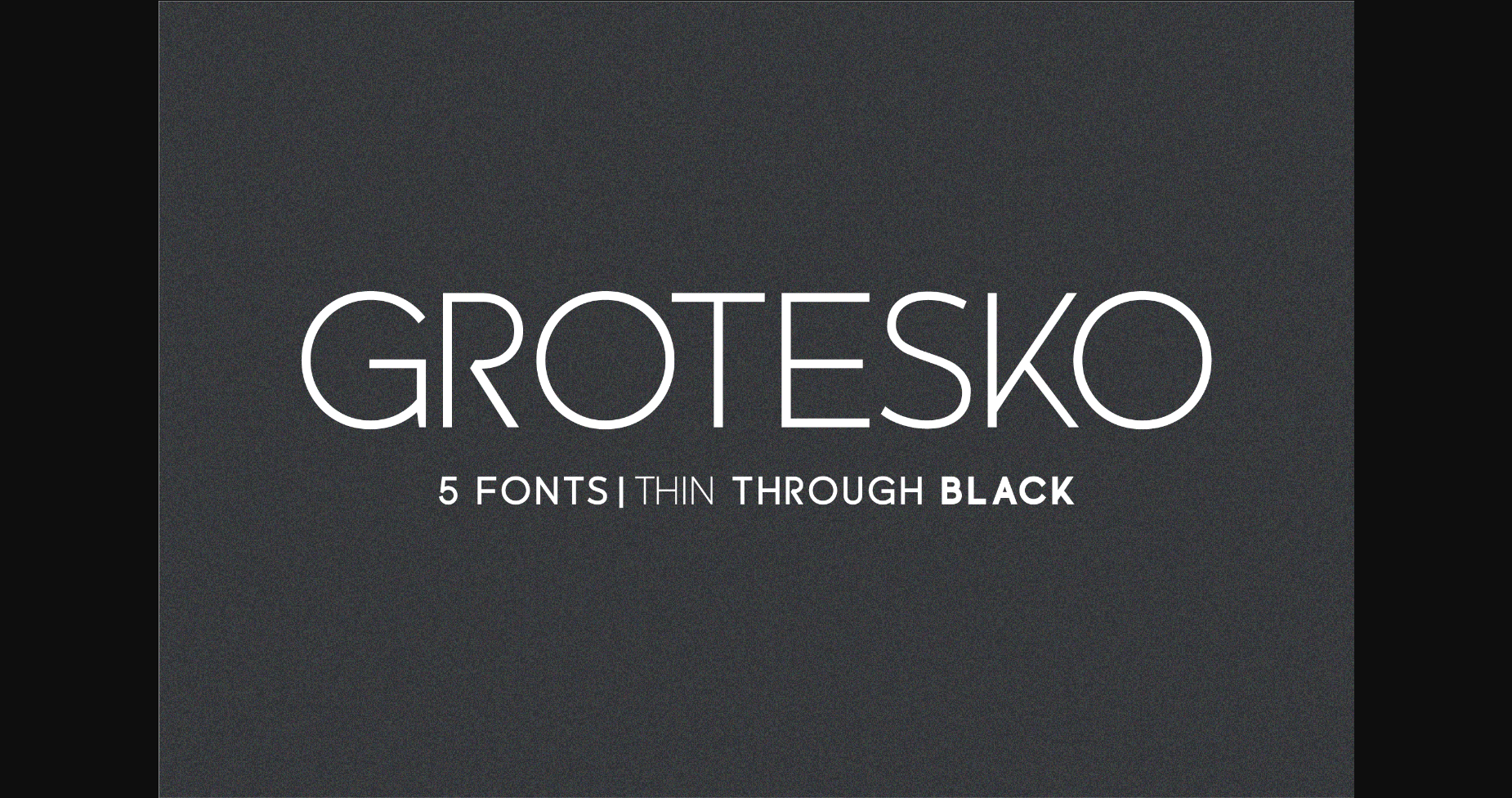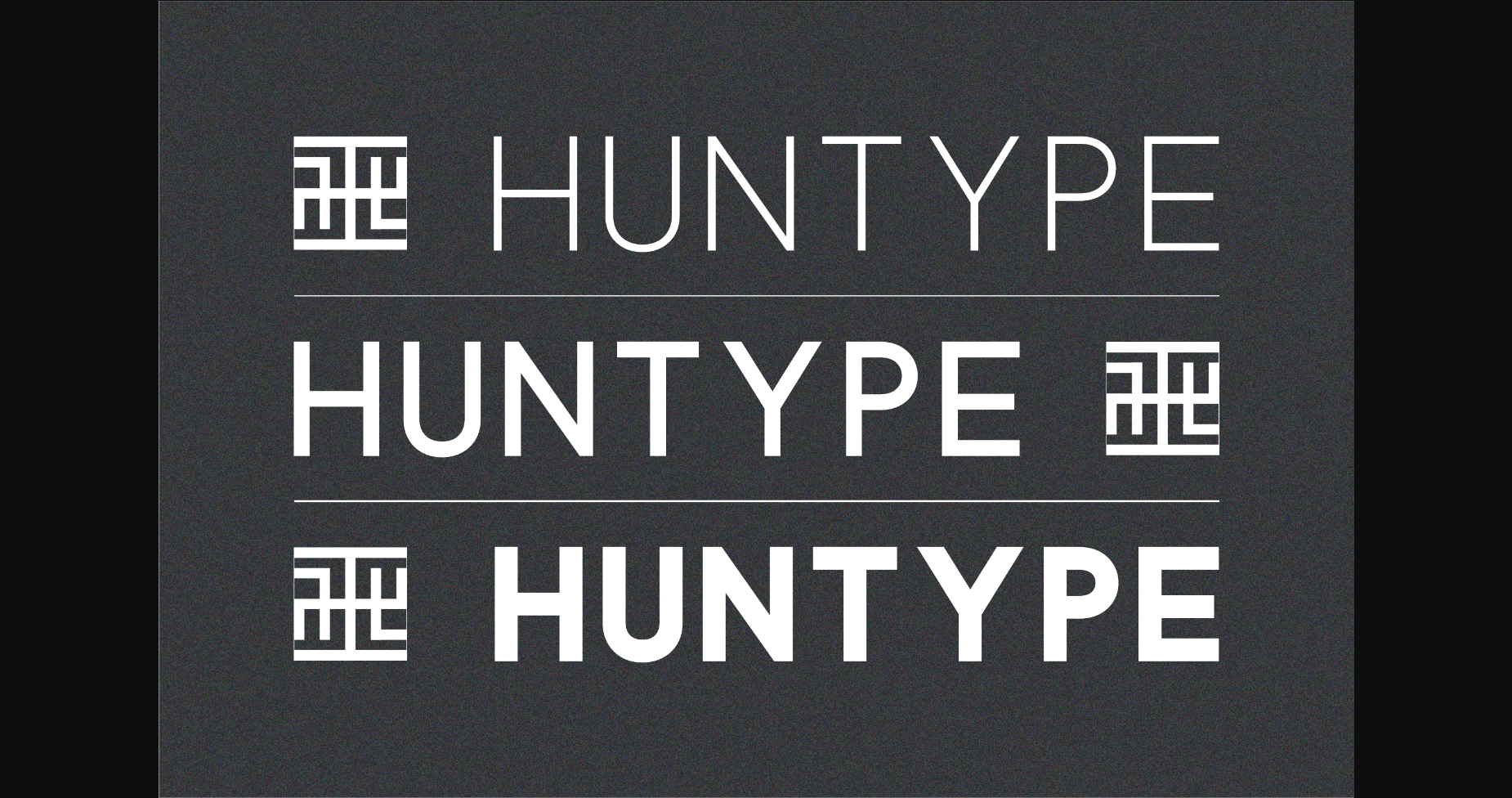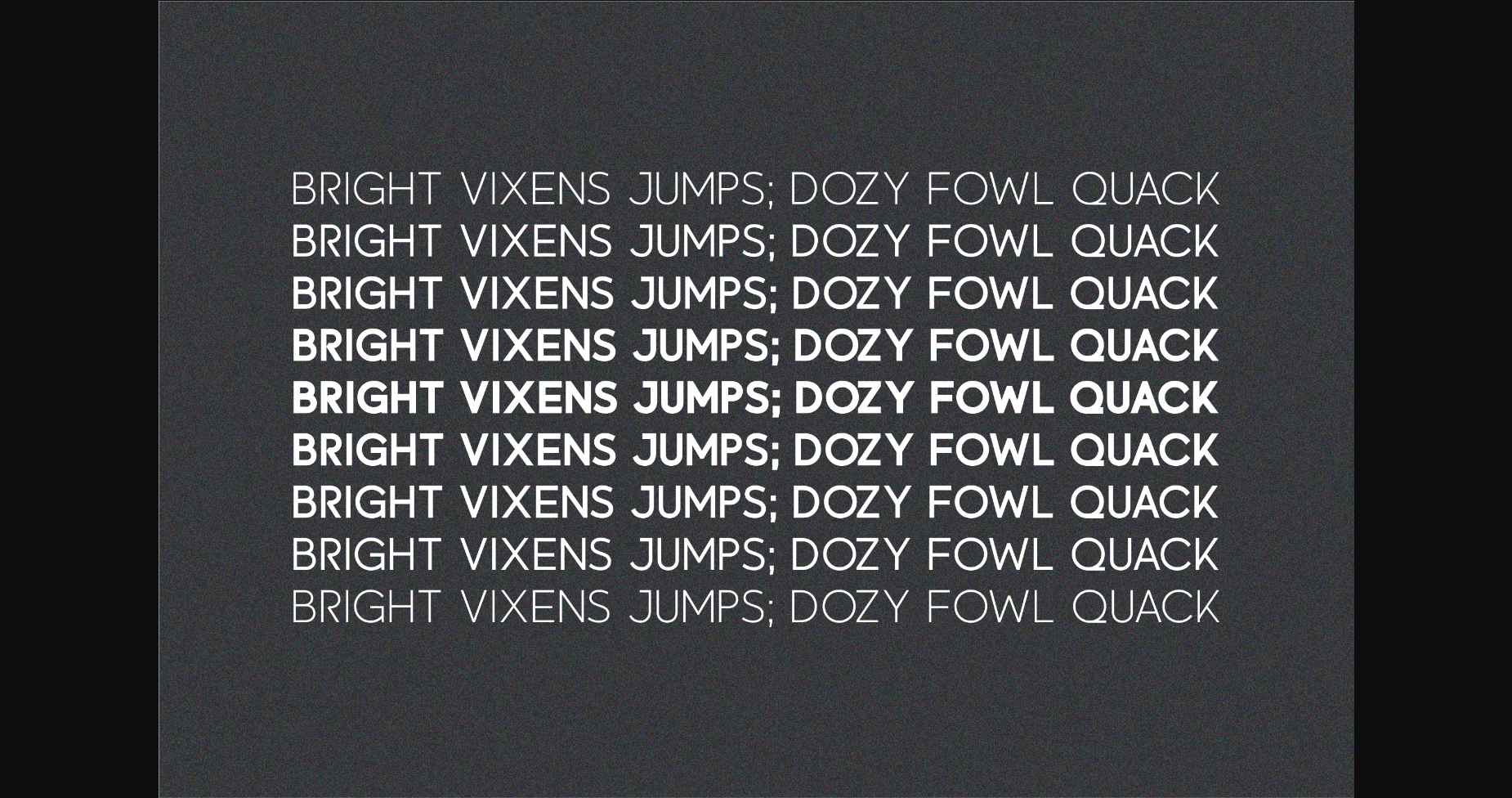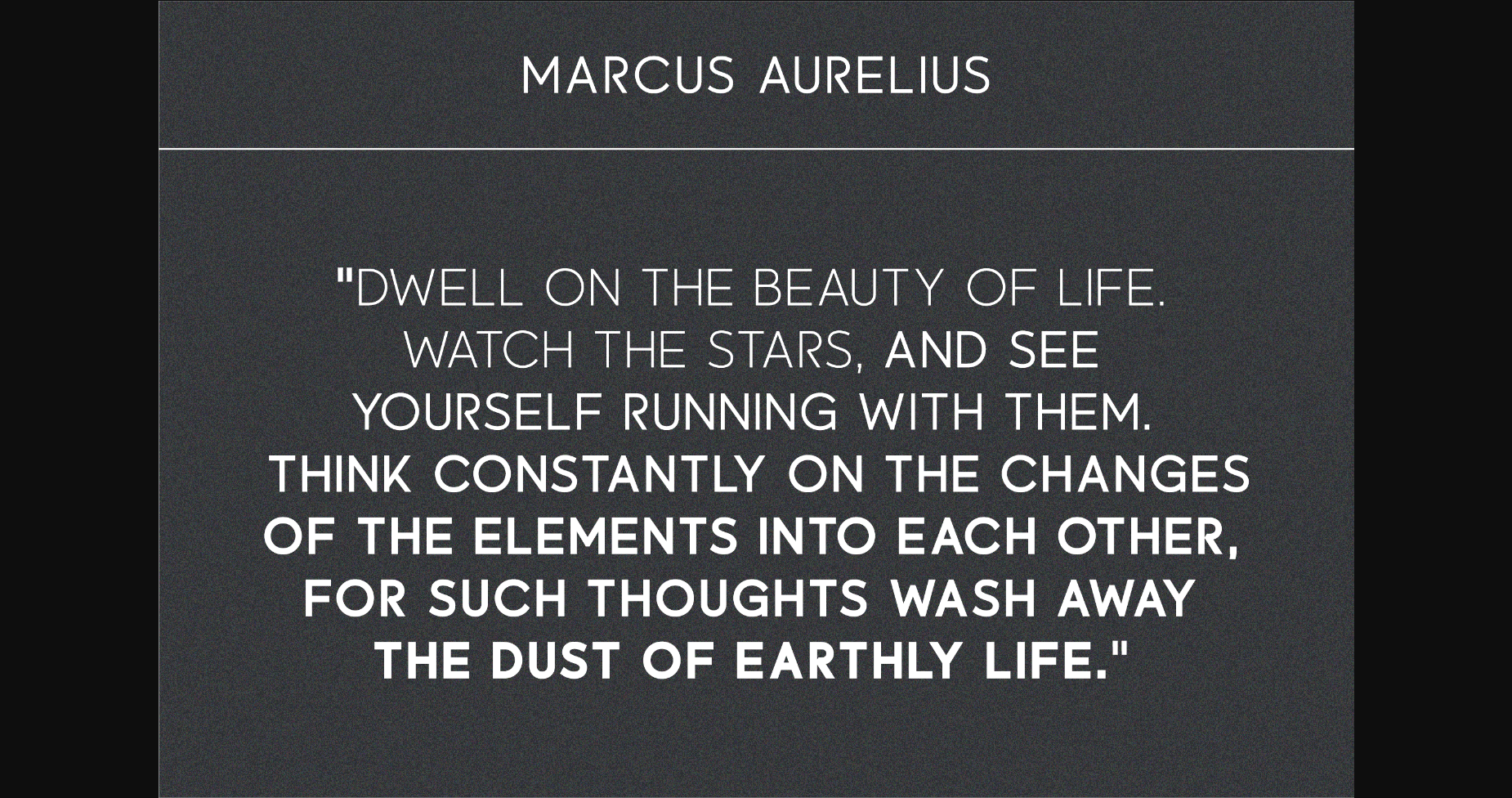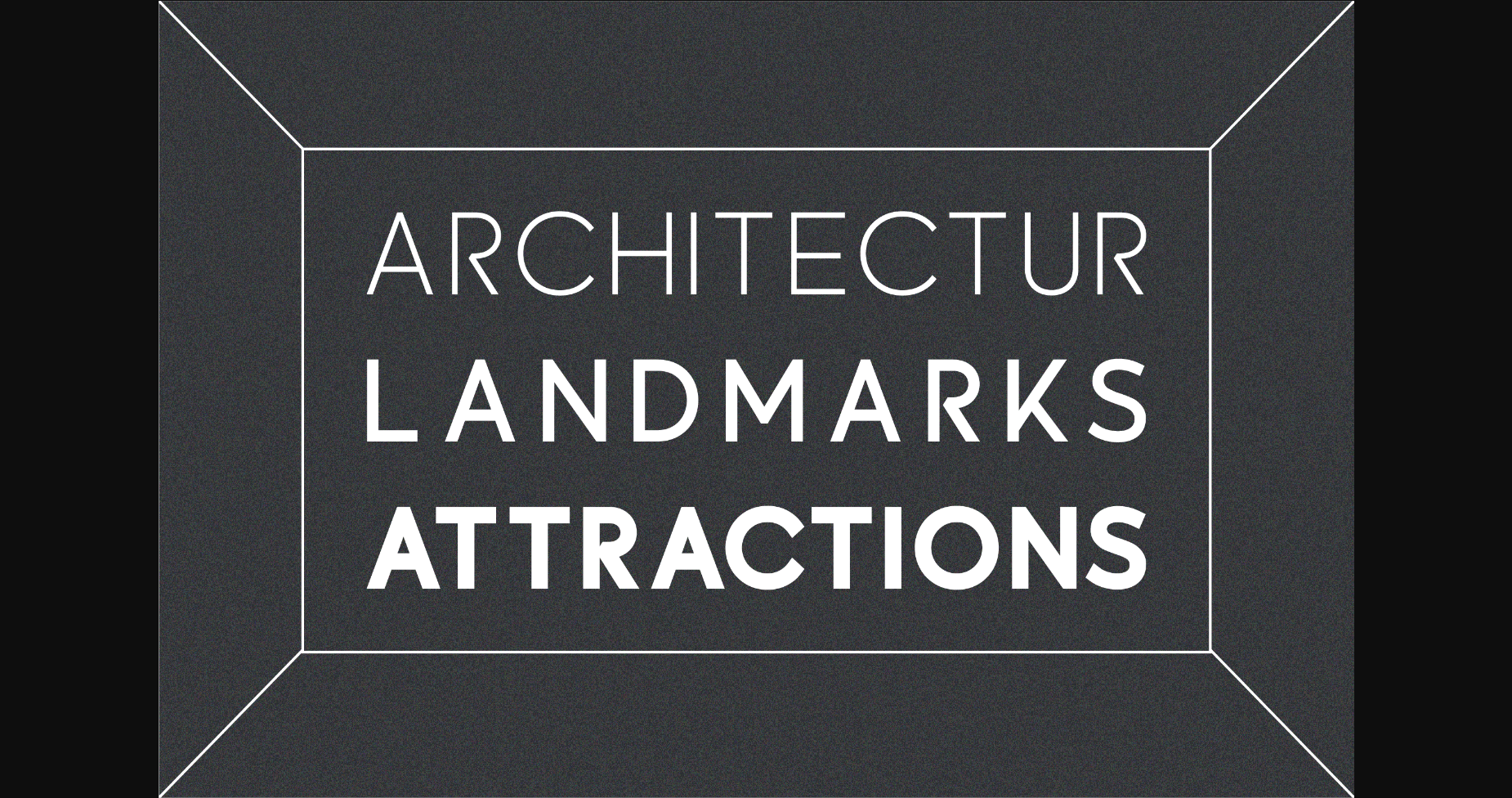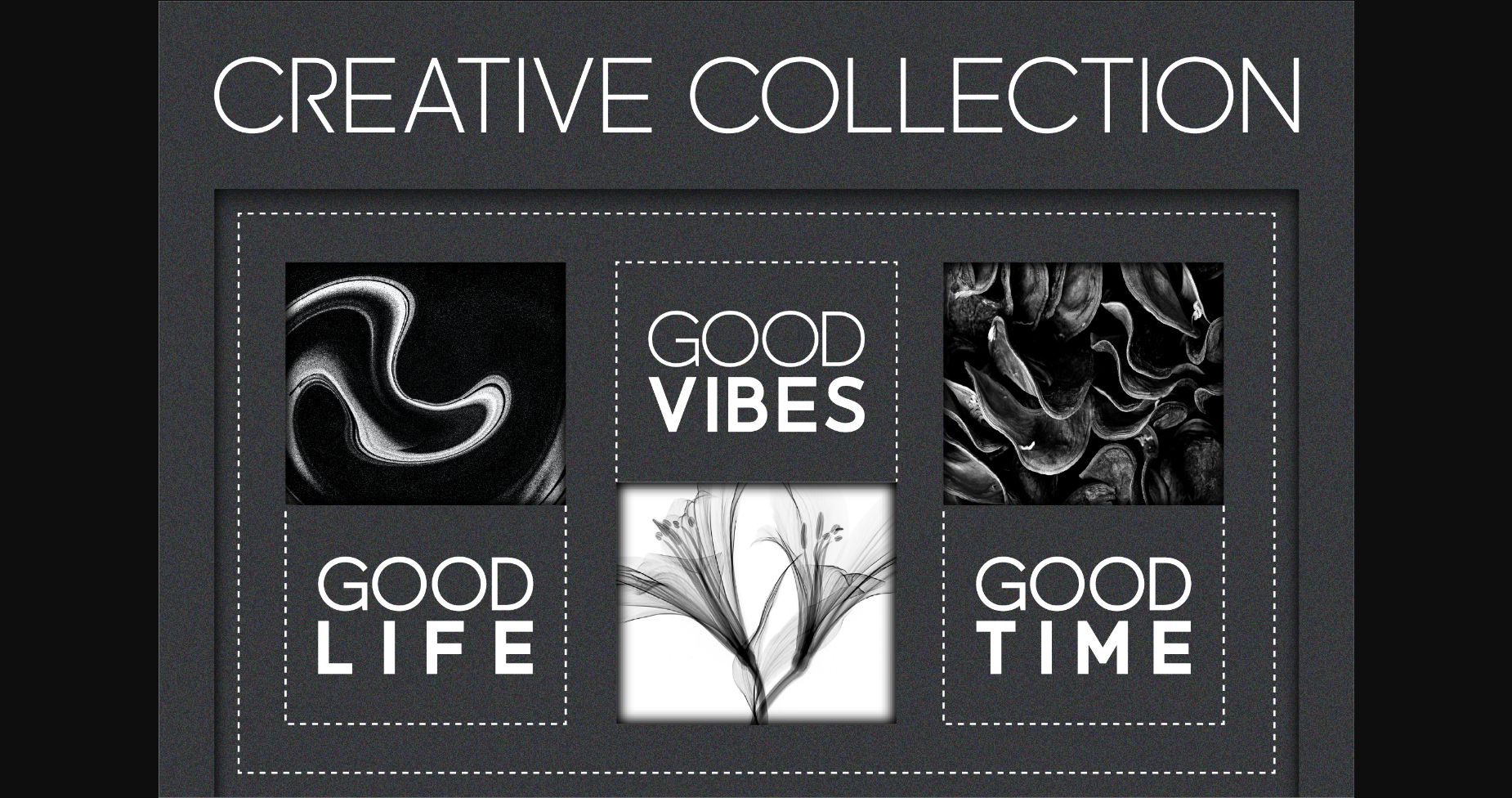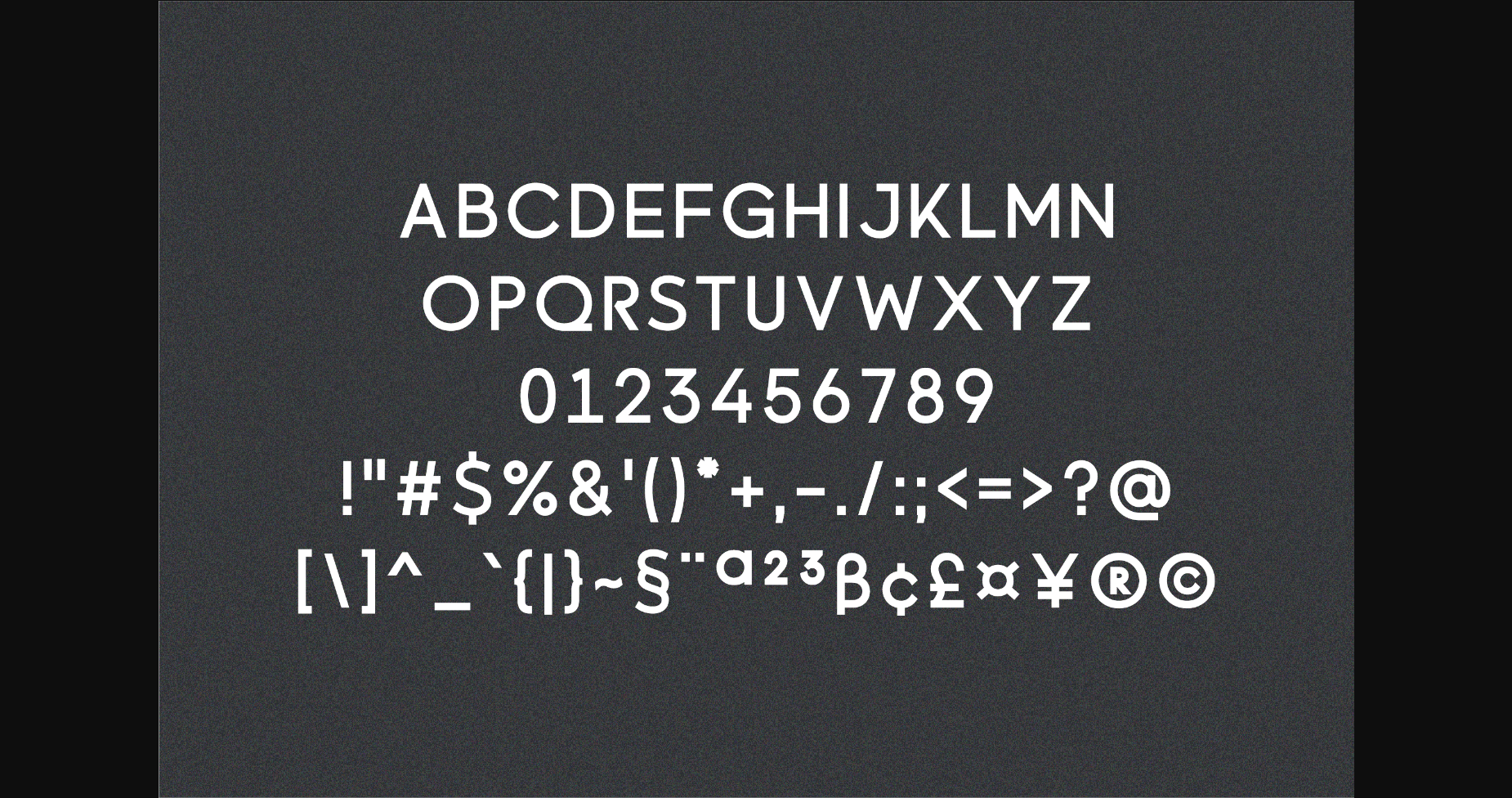
HomeSans Serif FontsGrotesko Font Sans Serif Fonts Grotesko Font FacebookXPinterestWhatsApp 1 of 9 ... Grotesko Font Poster 2... Grotesko Font Poster 3... Grotesko Font Poster 4... Grotesko Font Poster 5... Grotesko Font Poster 6... Grotesko Font Poster 7... Grotesko Font Poster 8... Grotesko Font Poster 9... About Grotesko Font With smooth and clean lines, and just a touch of contrast, Grotesko works beautifully for logos, branding, and web headings. DOWNLOAD NOW People also explored Pastel Candy Font Bokeseni UltraLight Font Moveri Font Sultone Font Bedoyo Font Dehasta Momentos Font Wonderful Valentine Font Meria and Fun Font Grindstone Font 408 0 TagsGrotesko Font Previous articleAngular Alchemy FontNext articleAlocasia Font LEAVE A REPLY Cancel reply Comment: Please enter your comment! Name:* Please enter your name here Email:* You have entered an incorrect email address! Please enter your email address here Website: Save my name, email, and website in this browser for the next time I comment. Personal Use Free BD Beans Personal Use Free Read more about this font Shelly Personal Use Free Read more about this font Fillguy Font Personal Use Free Read more about this font Bonifaciy Personal Use Free Read more about this font BLOG Free Fonts Risk: Why Free Fonts Can Be Dangerous for Designers Free Fonts Risk: Why Free Fonts Can Be Dangerous for Designers Using free fonts is a common practice in web and graphic design. However, the... Elegant Wedding Invitation Fonts – Handwritten & Script Fonts How to Cut Any Font on Cricut: Convert a Font to SVG (Free) Transform Your Website: Elevate Your Typography with 7 Best Web Font Generators